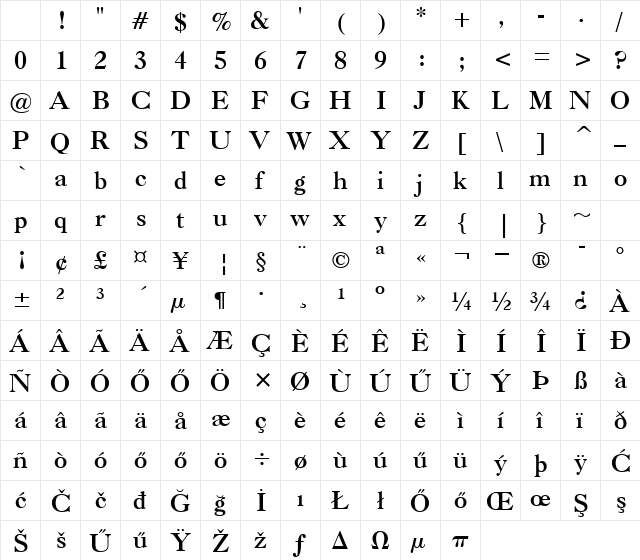
Complete H_Caslon BT Bold glyph index. Displaying only characters natively supported by H_Caslon BT Bold font.
H_Caslon BT is a composed and adaptable typeface that performs quietly and consistently across a wide range of design contexts. Its bold stroke weight gives it real presence on the page.